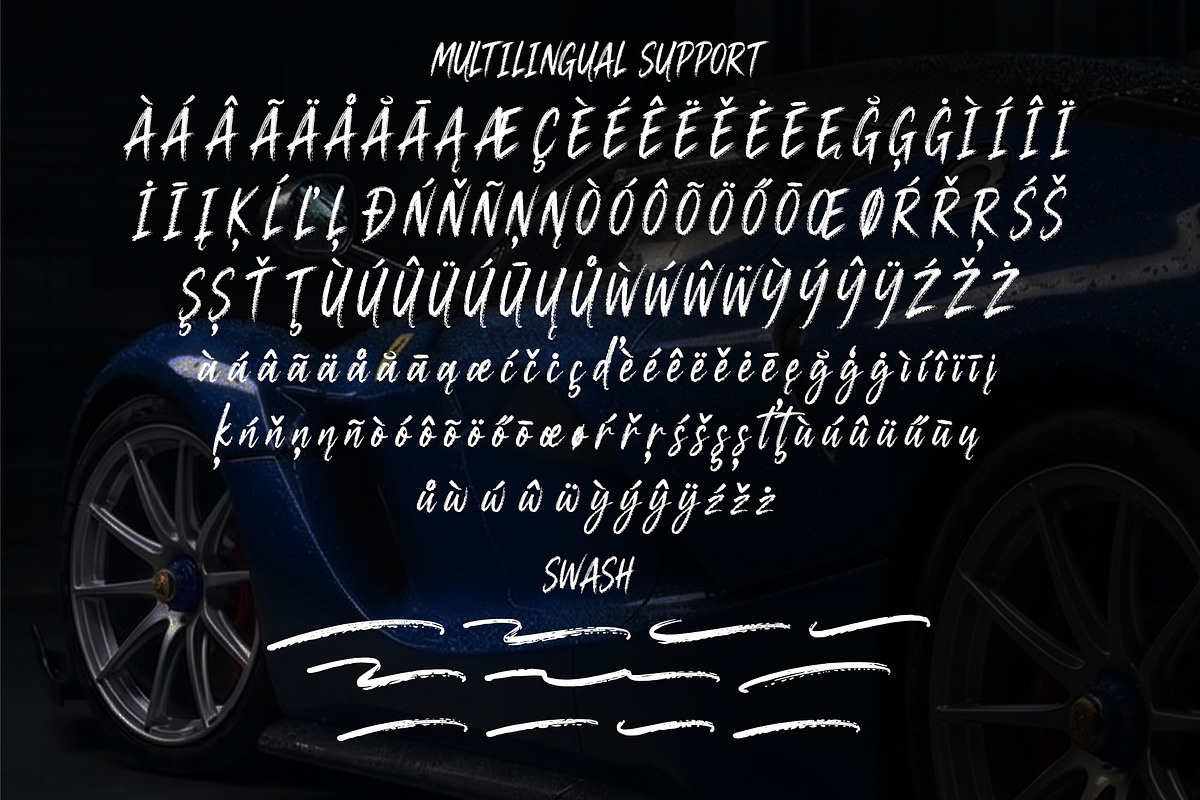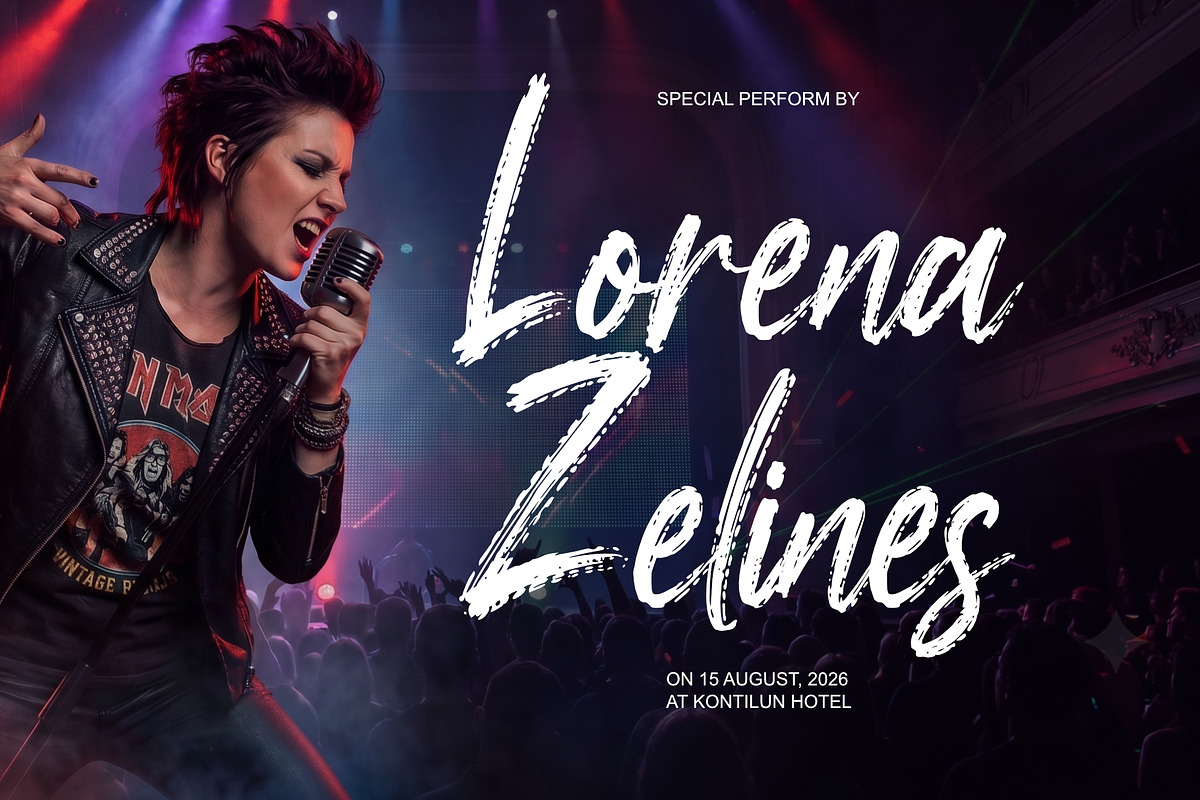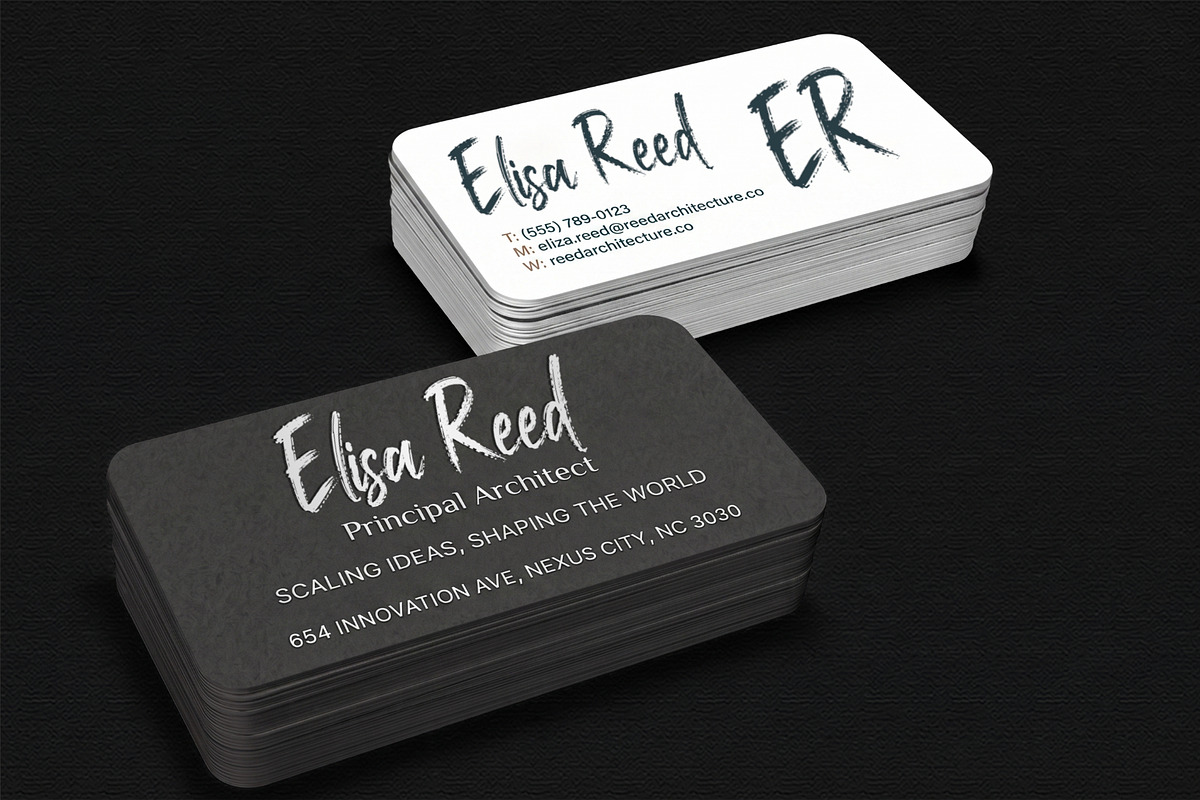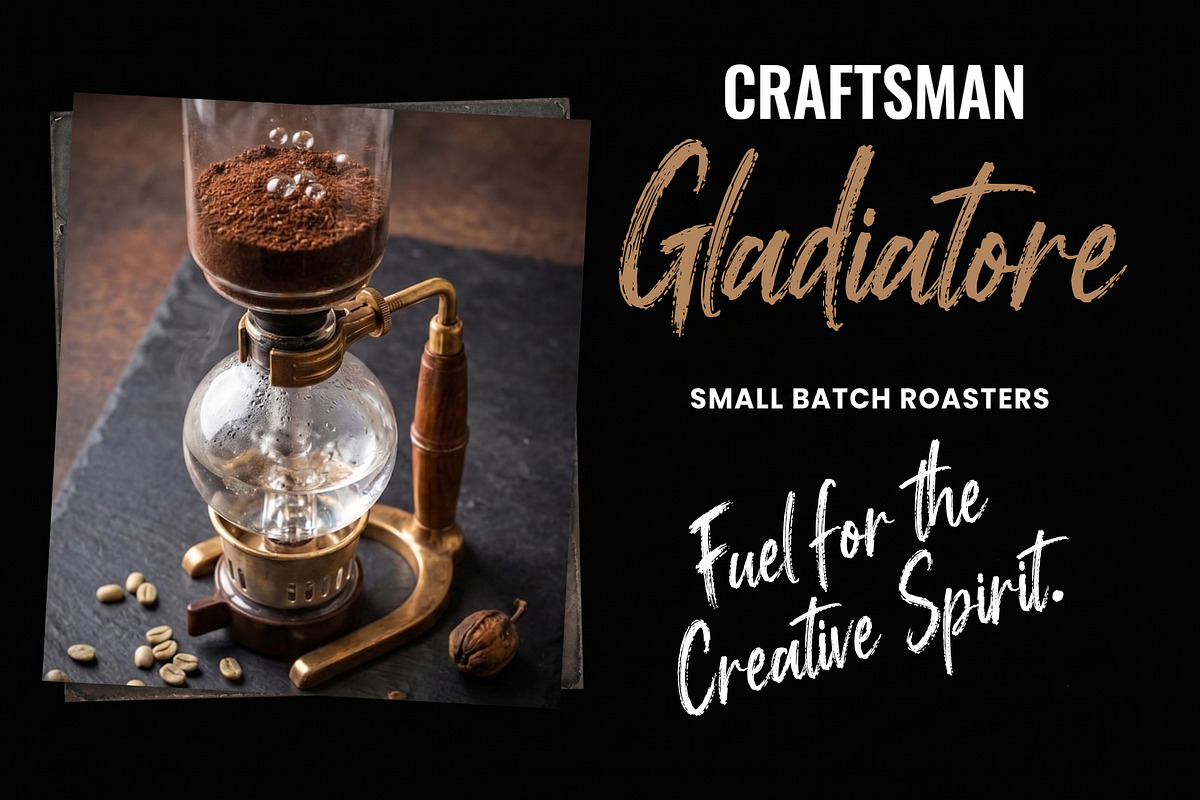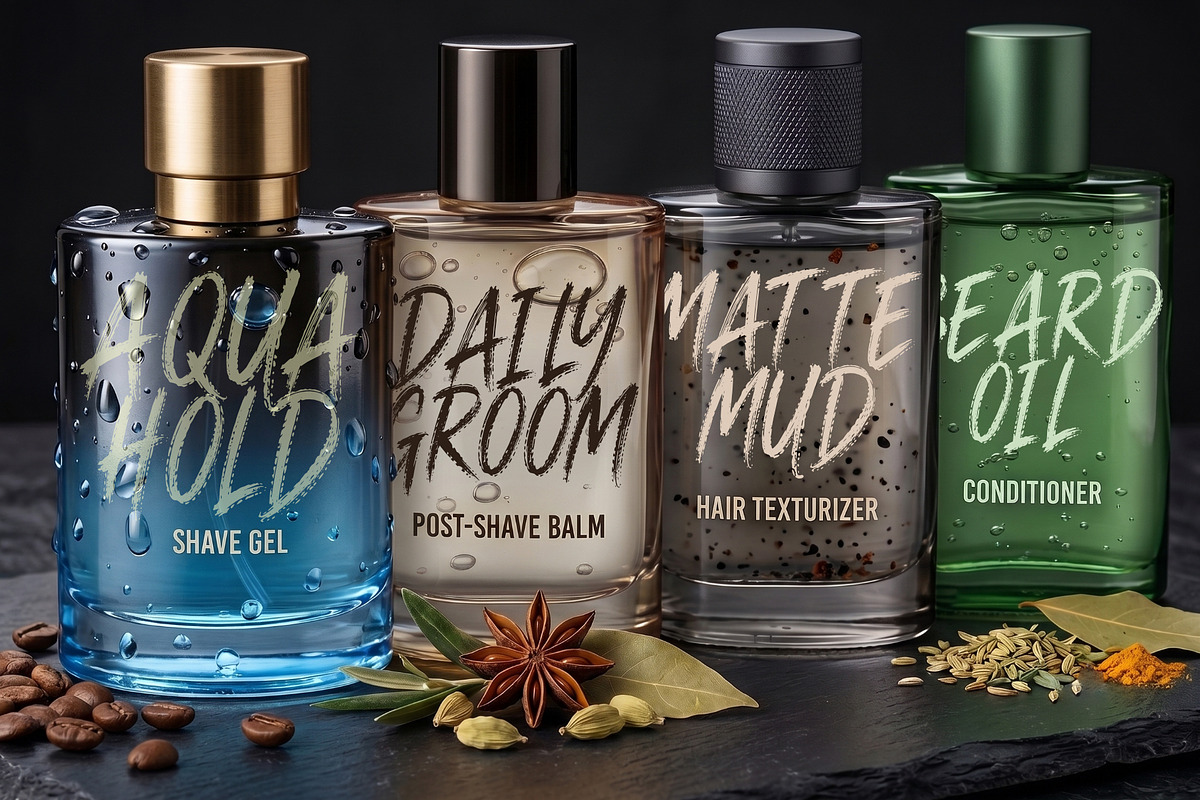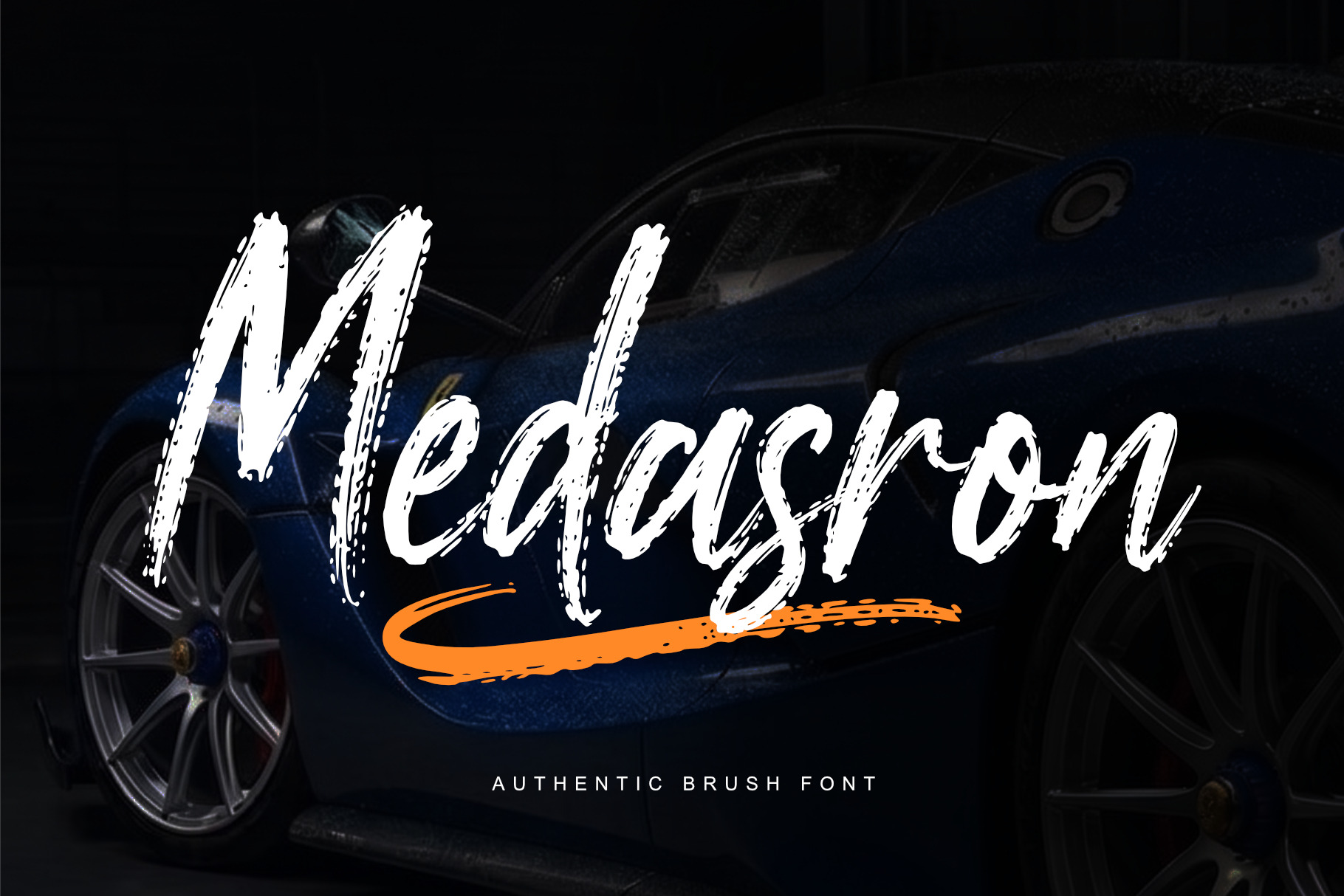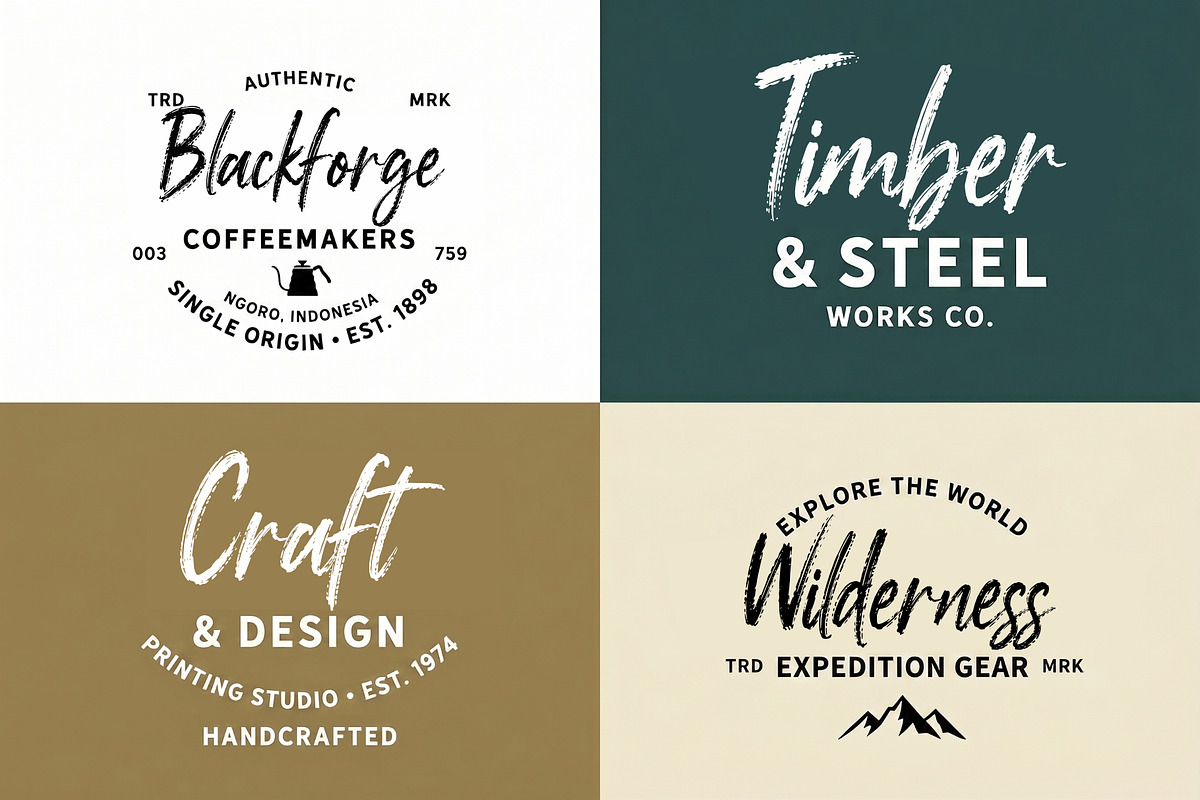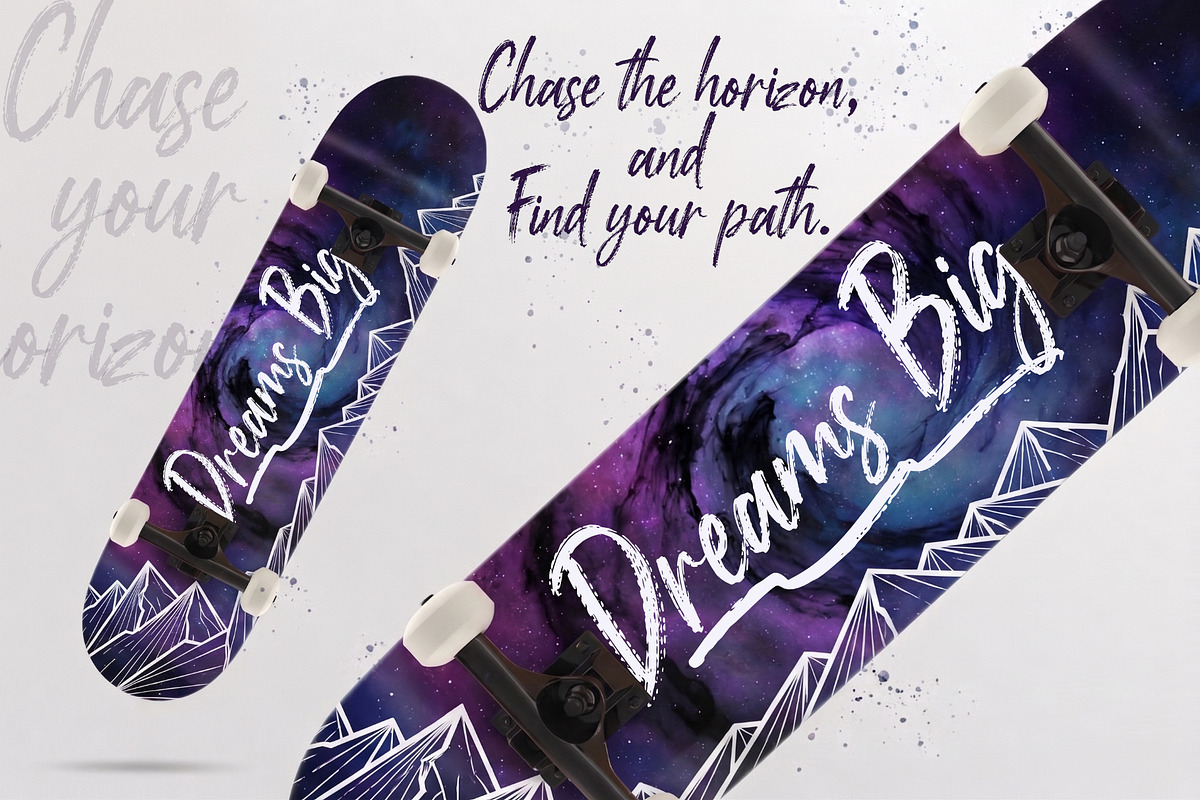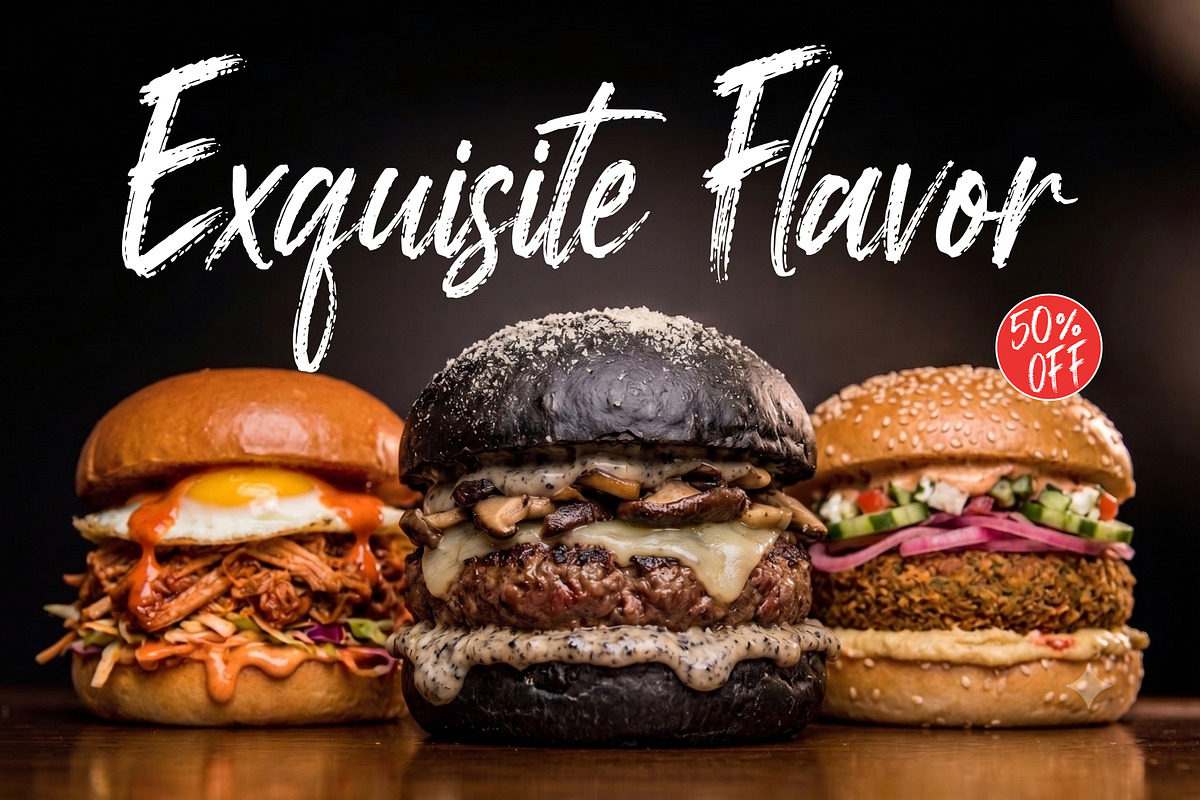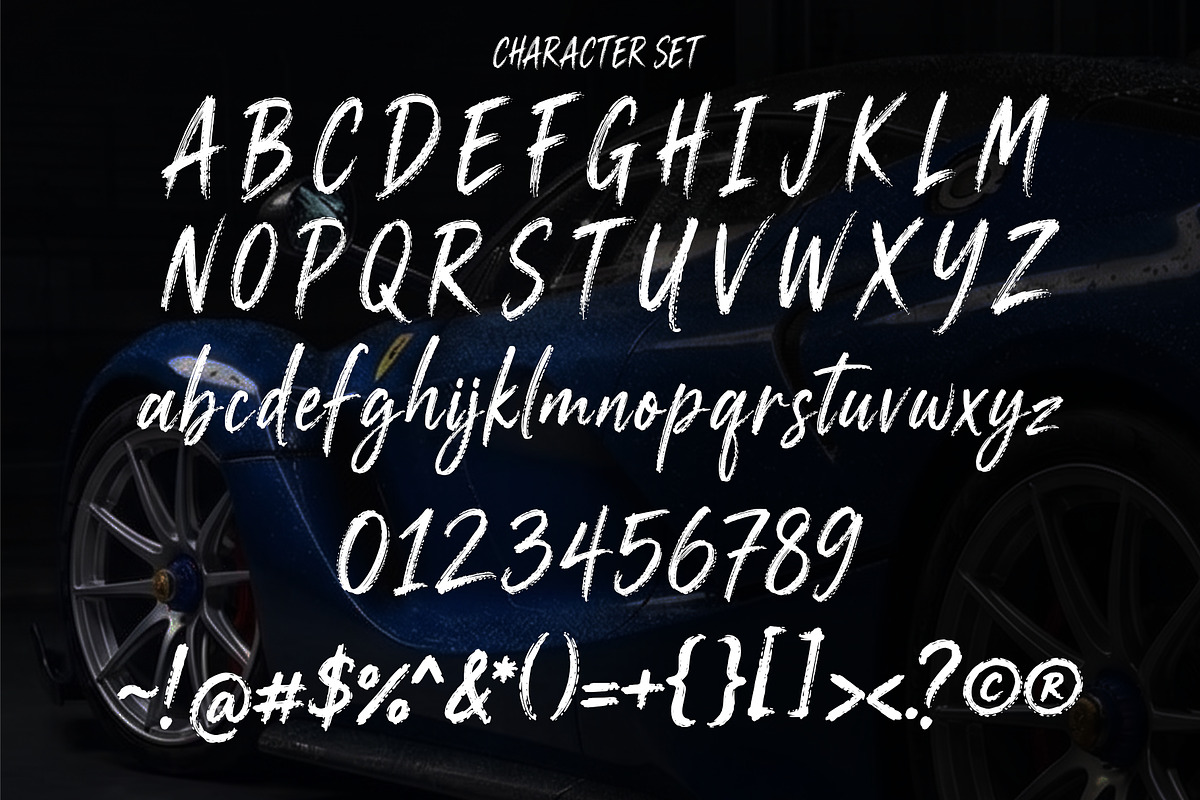
Medasron – Authentic Brush Font
Medasron is a bold and expressive authentic brush font designed to capture the raw energy of hand-painted strokes. With its rough edges, textured details, and natural flow, this font delivers a strong and dynamic visual impact while maintaining a modern and striking appearance.
Carefully crafted to reflect real brush movement, Medasron brings a sense of spontaneity and character to every letter. The dry brush texture and organic imperfections create a realistic handwritten feel, making it ideal for projects that require a powerful and artistic touch.
This font is highly versatile and works perfectly across a wide range of creative needs. Whether you're creating branding, posters, social media visuals, or merchandise, Medasron adds a bold and confident presence to your design.
Branding & Logotype
Posters & Headlines
Merchandise & Product Design
Automotive & Sport Visuals
Advertising & Packaging
Uppercase & Lowercase Letters
Swash
Authentic Brush Texture
Natural Handwritten Flow
Strong Visual Impact
Bring energy, attitude, and authenticity into your work with Medasron — a brush font that stands out and delivers impact.